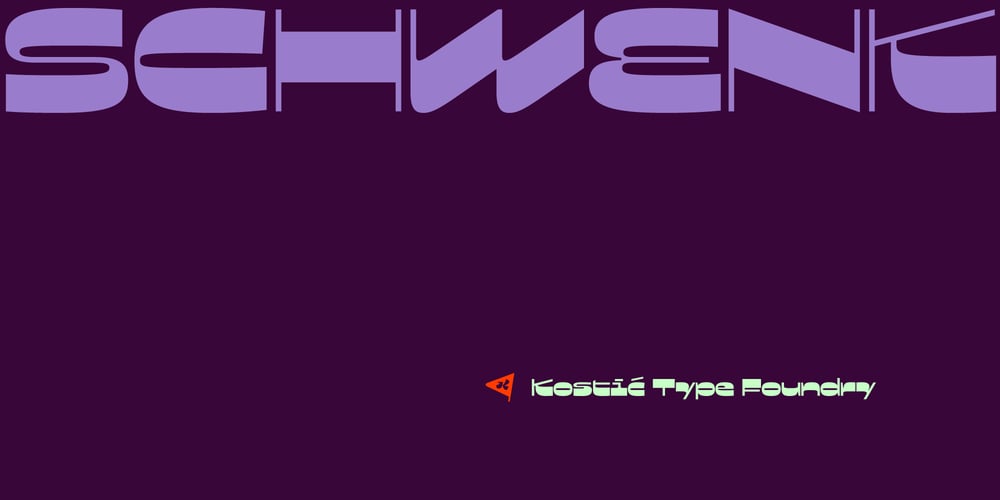
Schwenk Font Family was designed by Nikola Kostić and published by Kostic. Schwenk contains 2 styles and family package options. Schwenk is a wide reversed-contrast typeface made to be used in display settings – headlines, logotypes, store windows. The Regular style is adjusted for smaller point size while the Thin is made in a higher contrast for large headlines. An alternative (wide) capital letter I is available via the Stylistic Set.